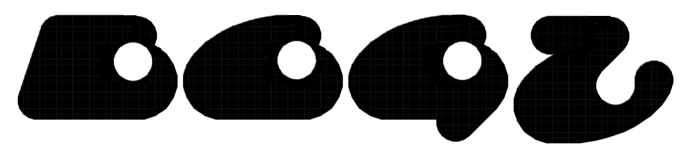
I'm with thalamic. Waiting for the numbers and others. What do you think about these little suggestions for B, C, G and Z?
@elmoyenique Thanks for the suggestions. For B, C, and G, it would change the position of the hole, which I've tried to keep consistent for all letters. I like the look of Z, but changing it will make S stand out as the only letter that takes more space above the line height.
Viscousby IronClaws